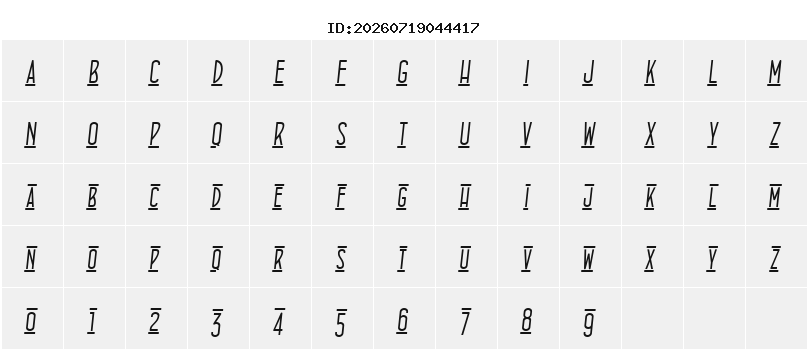
ConcursoItalian BTN Lined Preview
• Font Name: ConcursoItalian BTN Lined
• Font Style: Oblique
• Font ID: ConcursoItalian BTN Lined Oblique
• Full Font Name: ConcursoItalian BTN Lined Oblique
• PostScript Name: ConcursoItalianBTNLinedOblique
• Character Count: 264
About ConcursoItalian BTN Lined.ttf
ConcursoItalian BTN Lined.ttf is a modern, elegant sans-serif font designed for ultimate readability and visual harmony. Perfect for branding, headlines, web design, and print materials.